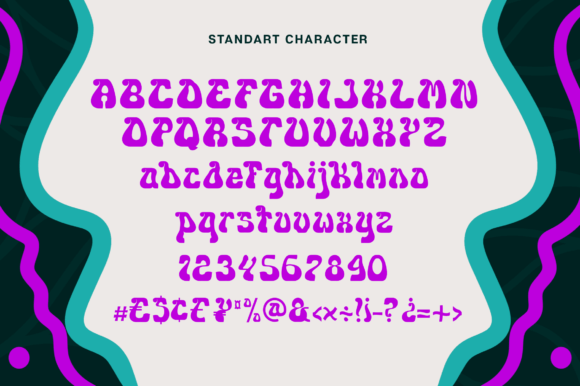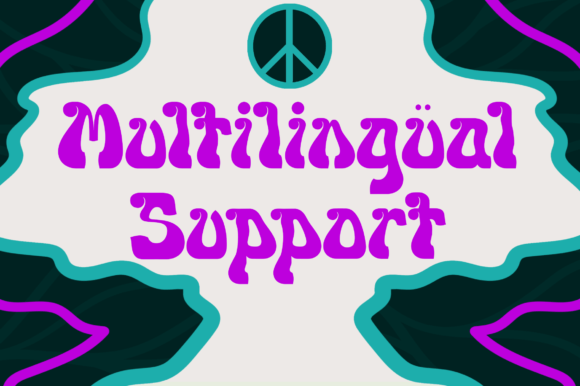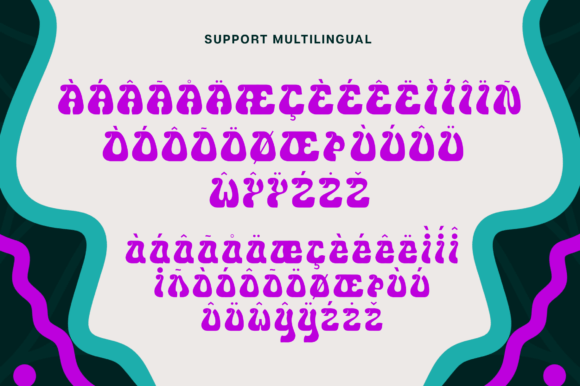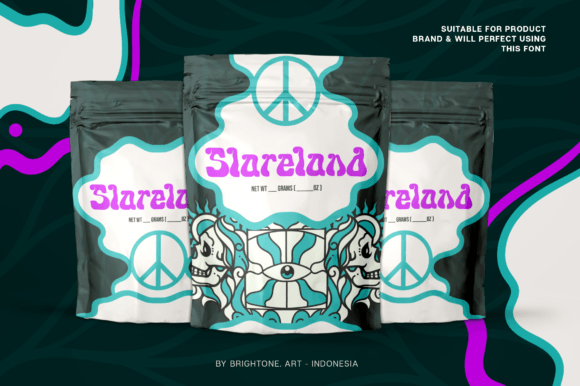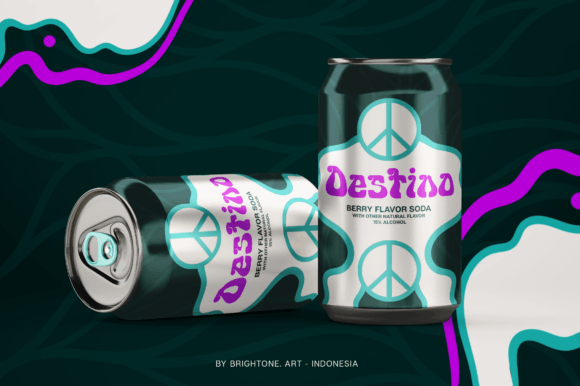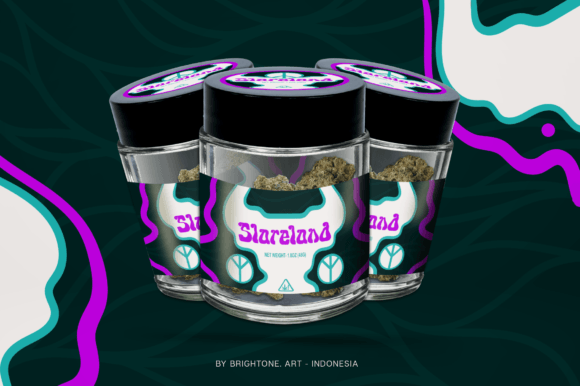
Introducing Blunt Quacker Font: Elevate Your Designs with a Unique Touch
In the world of typography, a font can make or break a design. For designers, crafters, and branding enthusiasts, finding the perfect font that combines style, uniqueness, and versatility is a constant quest. This is where Blunt Quacker Font comes into play – a decorative font that is not only visually appealing but also packed with character. In this article, we’ll dive deep into the features, uses, and benefits of Blunt Quacker Font, and explore how it can elevate your designs to the next level.
What is Blunt Quacker Font?
Blunt Quacker Font is a decorative typeface designed to add a good style and a unique touch to any design project. Its distinctive appearance makes it stand out from more traditional fonts, offering a fresh and modern look that can capture the attention of your audience. Whether you’re working on a logo, label, packaging, sticker, or any branding material, Blunt Quacker Font provides the perfect blend of aesthetics and functionality.
Key Features of Blunt Quacker Font
- Unique Design: The font boasts a one-of-a-kind design that can add a quirky and engaging element to your projects.
- Versatility: Blunt Quacker Font is highly versatile, making it suitable for a wide range of applications, from digital designs to print materials.
- Easy to Read: Despite its decorative nature, the font maintains a level of readability, ensuring your message is conveyed clearly.
- Customizable: The font can be easily customized to fit your project’s specific needs, allowing for a high degree of creative freedom.
Uses of Blunt Quacker Font
Blunt Quacker Font’s adaptability makes it an excellent choice for various design projects. Here are some of the best ways to utilize this font:
- Logo Lettering: Create memorable and impactful logos that reflect your brand’s personality.
- Logos: Perfect for crafting unique and recognizable logos that stand out in any industry.
- Labels: Add a decorative and eye-catching element to your product labels or any other type of label.
- Packaging: Elevate your product packaging with a font that combines style and uniqueness.
- Stickers: Design stickers that are not only fun but also reflective of your brand’s aesthetic.
- Branding: Consistency in branding is key, and Blunt Quacker Font can help maintain a cohesive look across all your branding materials.
Benefits of Using Blunt Quacker Font
Choosing Blunt Quacker Font for your design projects comes with several benefits:
- Enhanced Creativity: The font’s unique design can inspire creativity and help you produce distinctive designs.
- Brand Differentiation: Stand out from your competitors with a font that is both stylish and memorable.
- Time-Saving: With its versatility and ease of use, Blunt Quacker Font can significantly reduce the time spent on finding and testing different fonts.
- Professional Look: Achieve a professional and polished look without compromising on creativity and originality.
How to Get the Most Out of Blunt Quacker Font
To maximize the potential of Blunt Quacker Font, consider the following tips:
- Experiment with Colors: Play around with different colors to find the perfect match for your design and brand.
- Pair with Other Fonts: Don’t be afraid to combine Blunt Quacker Font with other fonts to create a layered and interesting look.
- Adjust Size and Weight: Experiment with different sizes and weights of the font to add depth and emphasis to your text.
- Use in Digital and Print: Take advantage of the font’s versatility by using it in both digital and print materials.
| Font Name | Blunt Quacker Font |
| Author | brightonexart |
Blunt Quacker Font is more than just a decorative typeface – it’s a tool for designers and crafters to express their creativity and bring a unique touch to their projects. With its distinctive design, versatility, and ease of use, it’s an excellent addition to any design toolkit. Whether you’re working on a logo, packaging, or branding materials, Blunt Quacker Font offers the perfect blend of style and functionality to help you achieve your design goals.
So, why settle for ordinary when you can make your designs extraordinary with Blunt Quacker Font? Explore its possibilities today and discover a world of creative potential at your fingertips.